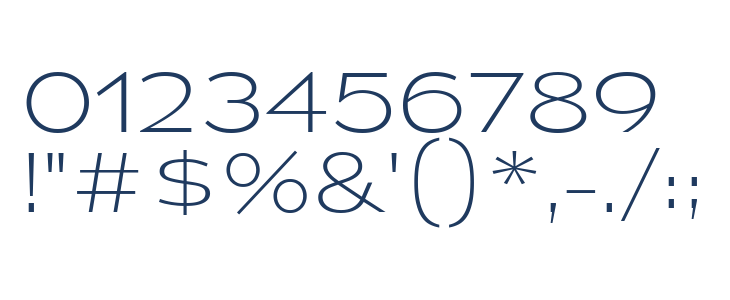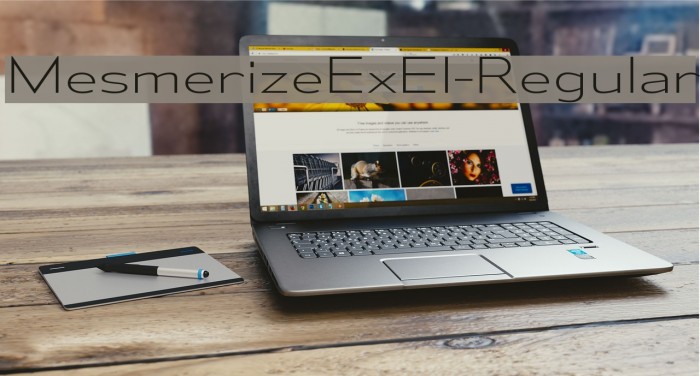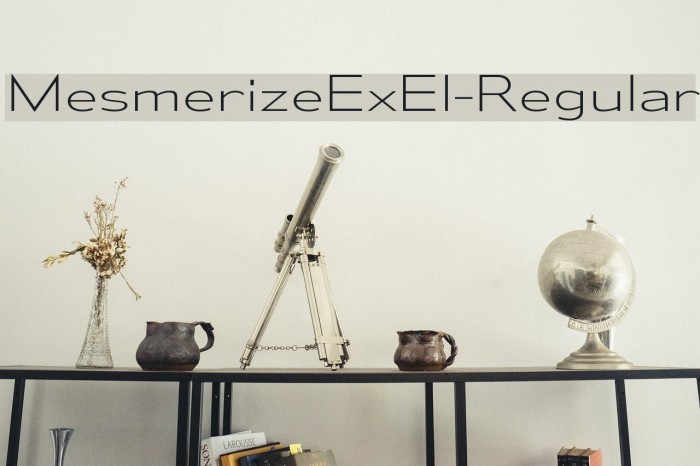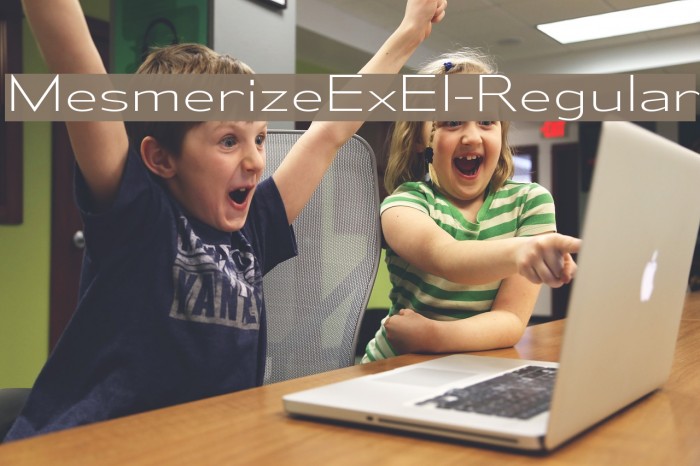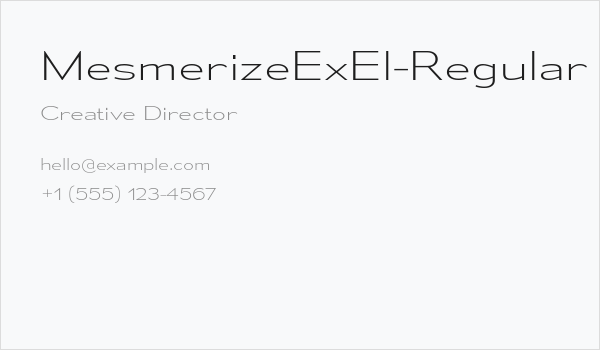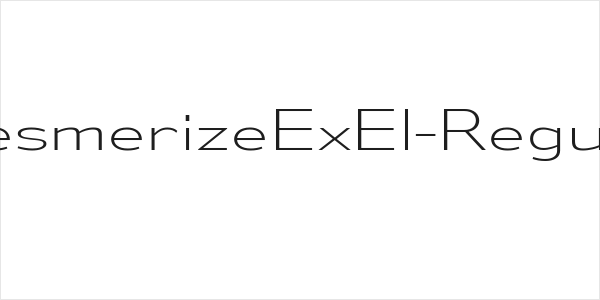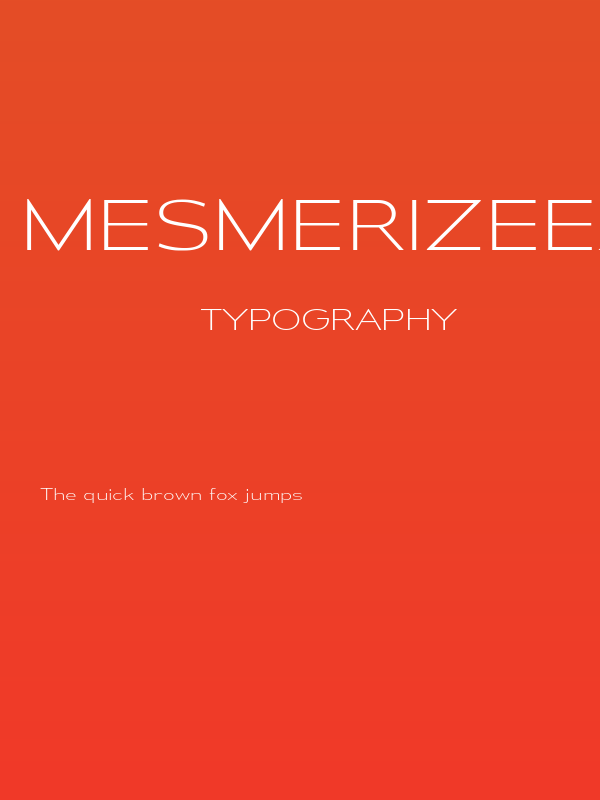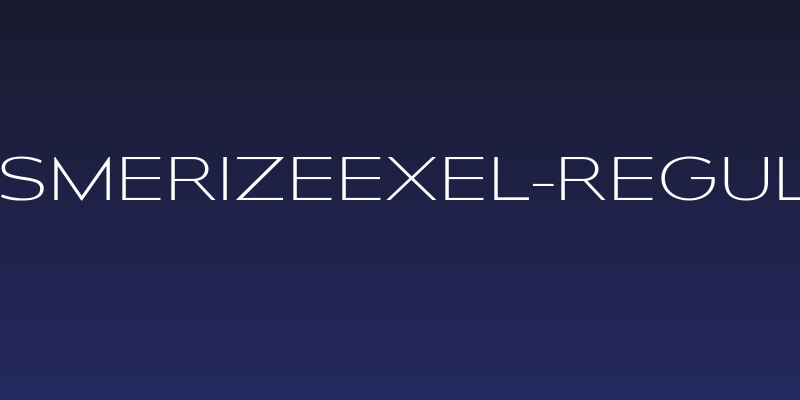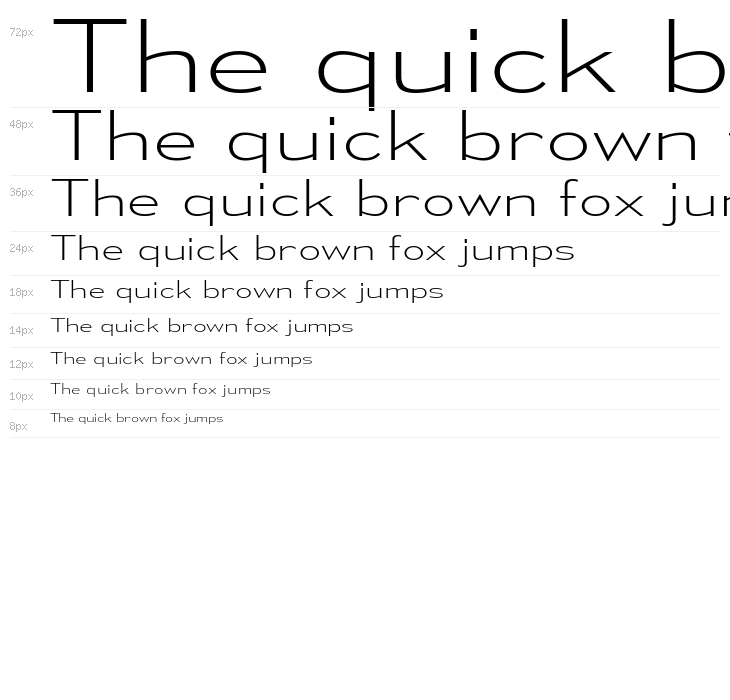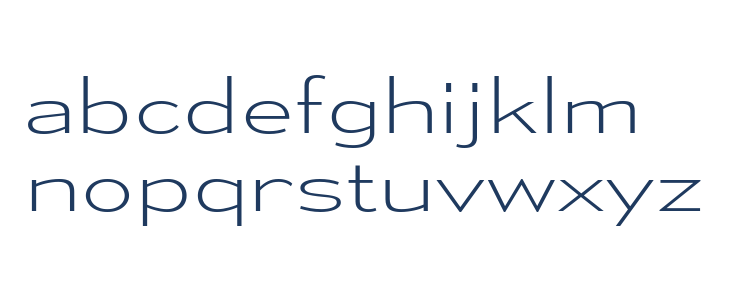
MesmerizeExEl-Regular Font
MesmerizeExEl-Regular Description
This font features a clean and modern sans-serif design with a geometric structure. The characters are well-balanced and exhibit a uniform stroke width, contributing to a sleek and contemporary appearance. The uppercase letters are bold and assertive, while the lowercase letters maintain a harmonious flow. The numerals are clear and legible, making them suitable for various applications. Special characters are distinct and integrate seamlessly with the overall style. The font's simplicity and elegance make it versatile for both digital and print media.
| Proposed Projects | Ideal for branding, web design, advertising, and editorial projects. |